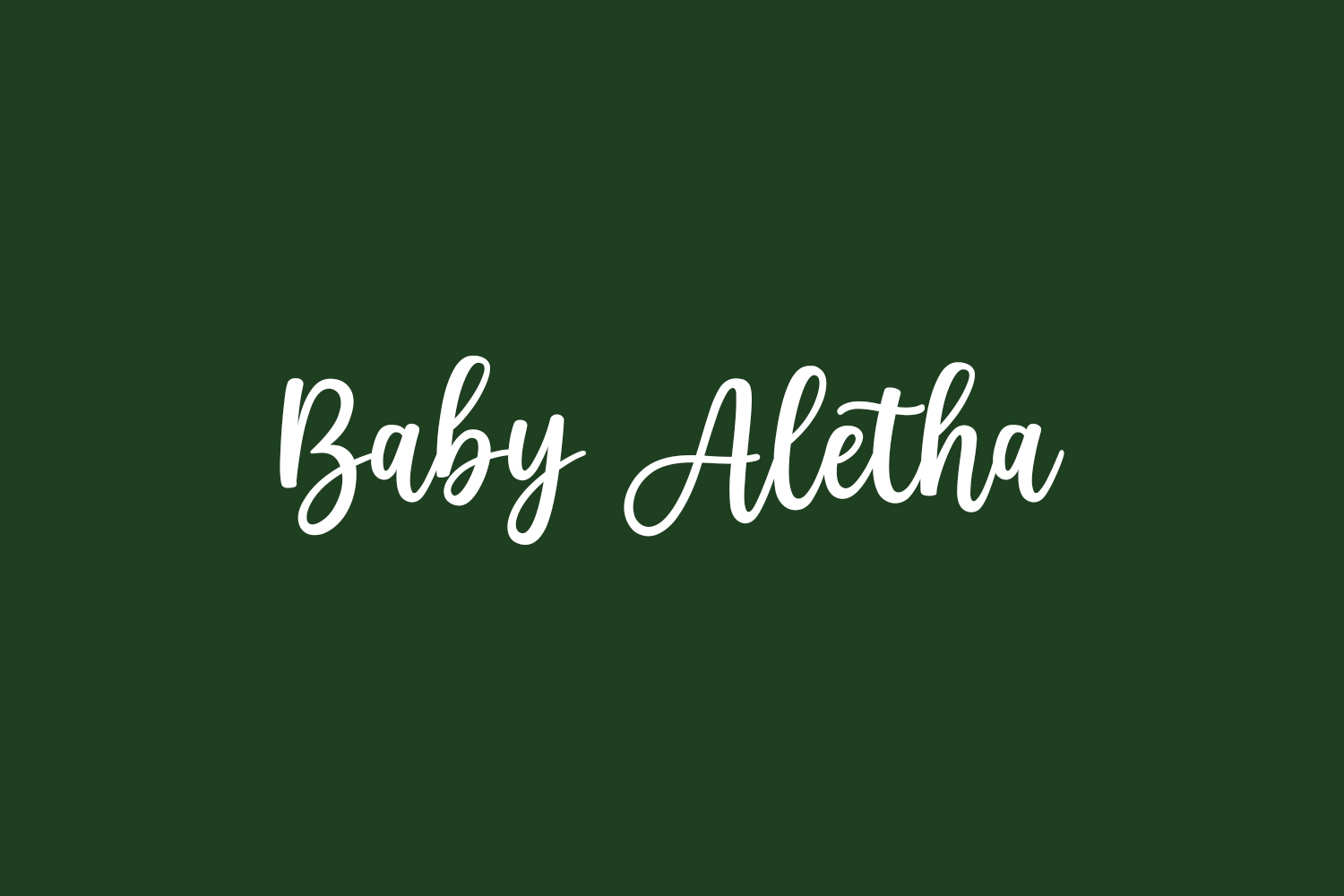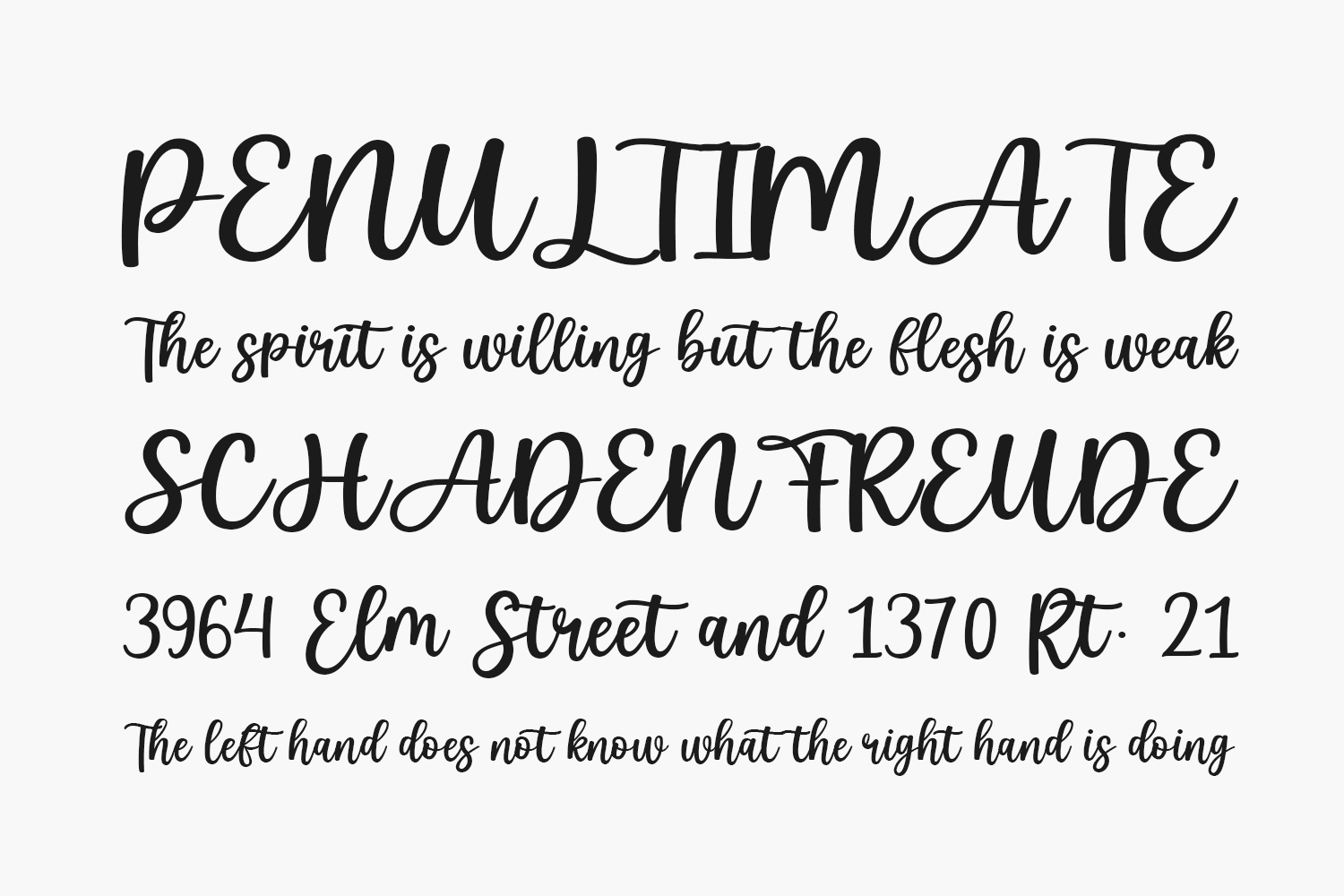
Baby Aletha Free Font is a romantic and sweet calligraphy typeface with characters that dance along the baseline. It will add a luxury spark to any design project that you wish to create. Baby Aletha Free Font was designed by Ramli Setiadi and is free for personal use only. Please purchase the full version for commercial use.